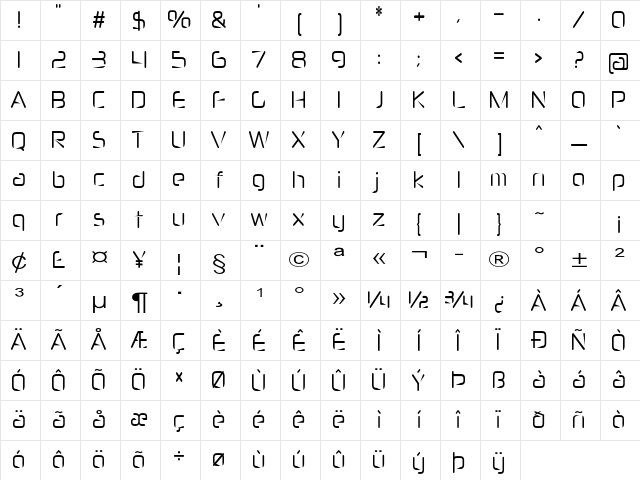
Heckle Expanded Regular Free Font
Heckle Expanded Regular
Style: Expanded Regular
Heckle Family
Heckle Expanded Regular
Complete Heckle Expanded Regular glyph index. Displaying only characters natively supported by Heckle Expanded Regular font.
Design Context for Heckle
Heckle is a composed and adaptable typeface that performs quietly and consistently across a wide range of design contexts.